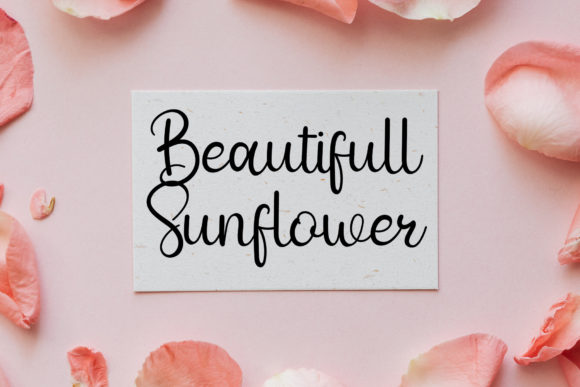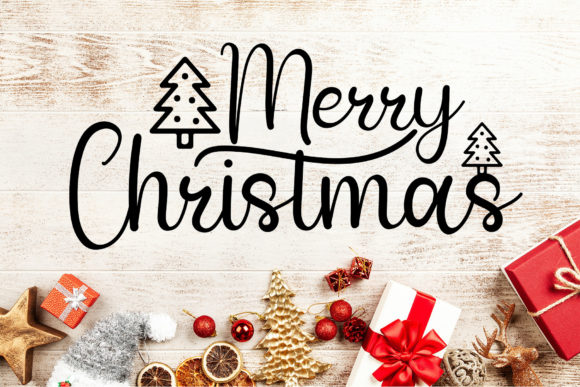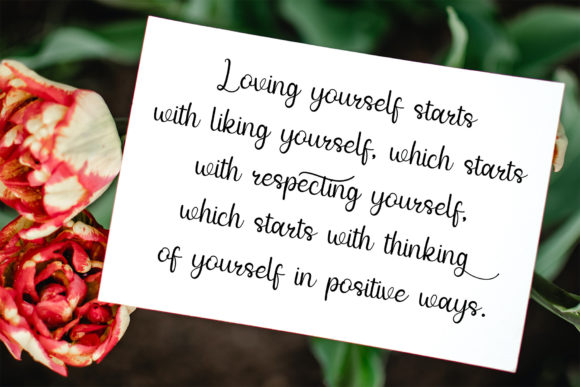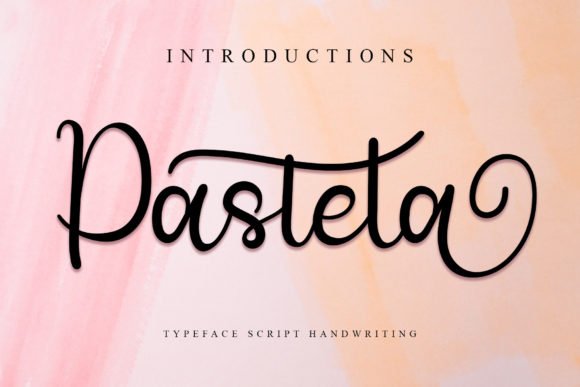
Introduction to Pastela Font
Pastela is a romantic and sweet calligraphy typeface with characters that dance along the baseline.
It will add a luxury spark to any design project that you wish to create .
Key Features of Pastela Font
Why Choose Pastela Font?